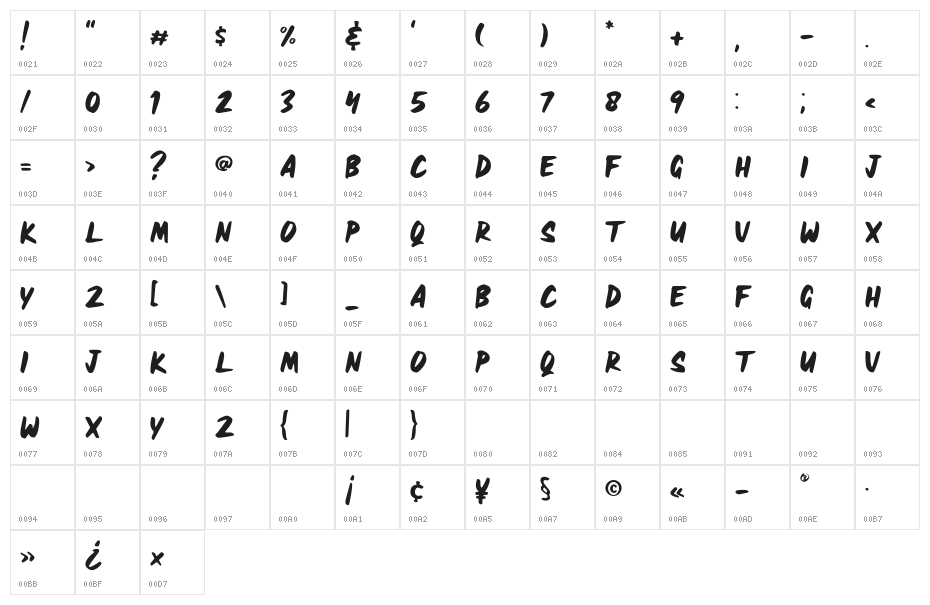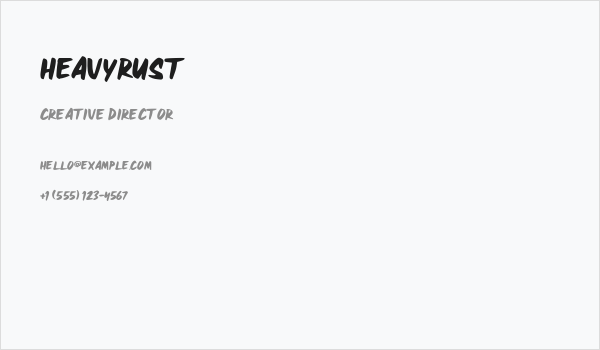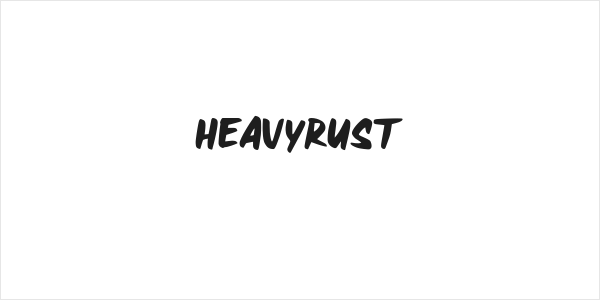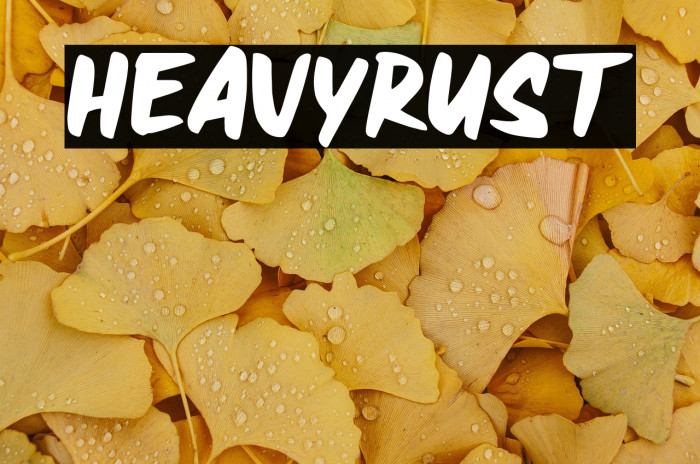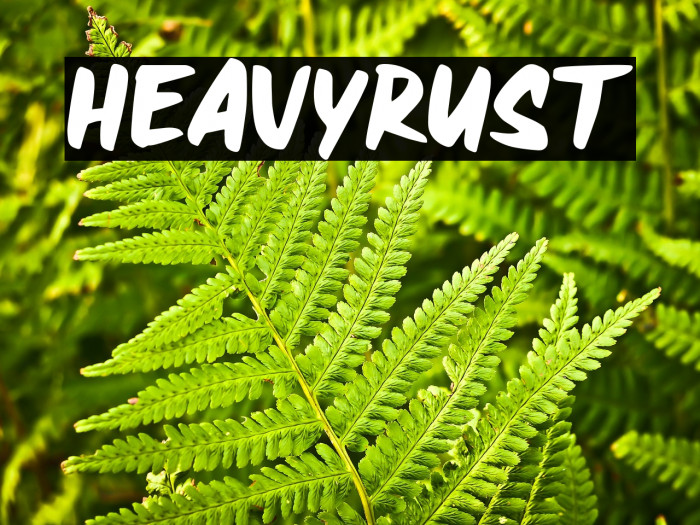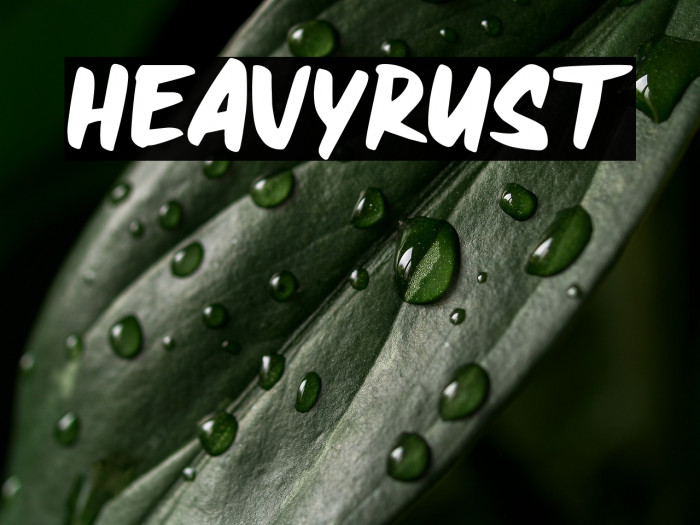
HEAVYRUST Font
HEAVYRUST Description
This font features a bold and dynamic style with a hand-drawn appearance, characterized by thick strokes and a slightly irregular baseline that adds a sense of movement and energy. The letters are bold and rounded, giving them a friendly and approachable feel. The uppercase and lowercase letters maintain a consistent weight, creating a cohesive look. The numerals and special characters are designed to match the overall style, ensuring uniformity across all elements. This font is perfect for projects that require a personal touch or a casual, informal vibe.
| Overall Style | Casual, Energetic |
| Proposed Projects | Ideal for branding, posters, social media graphics, and any design needing a lively, personal touch. |